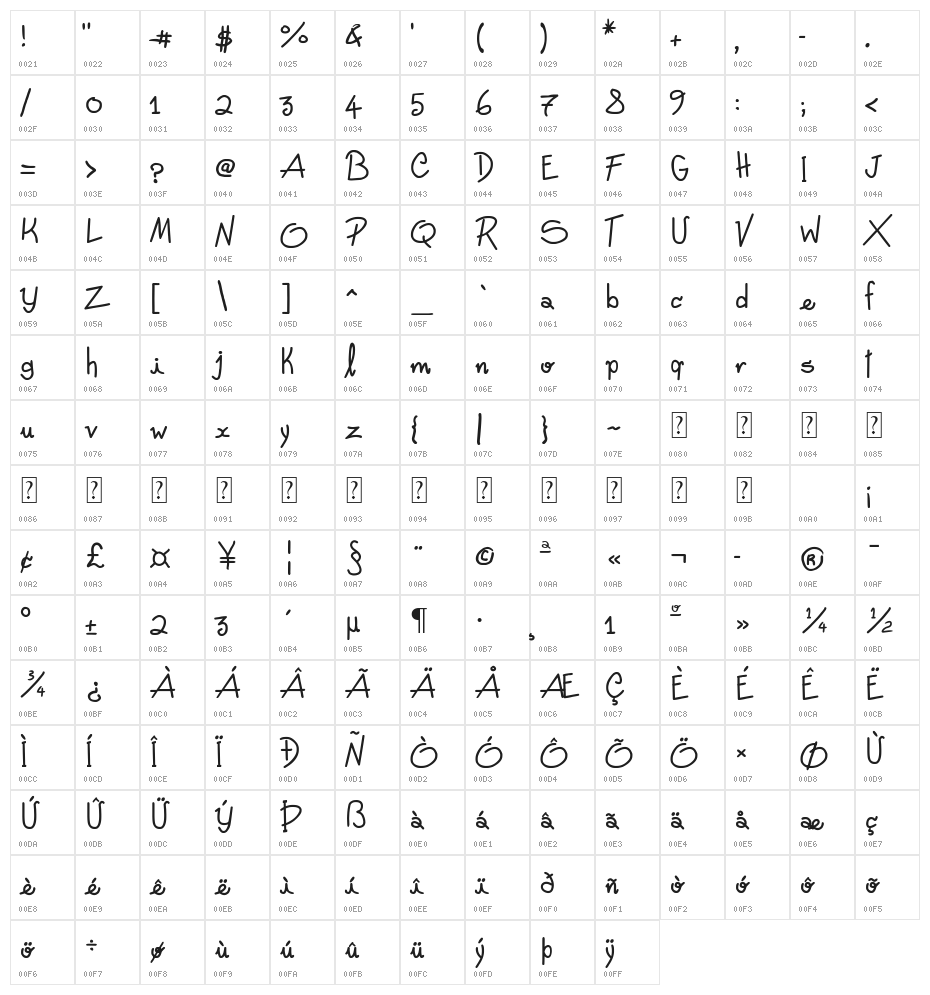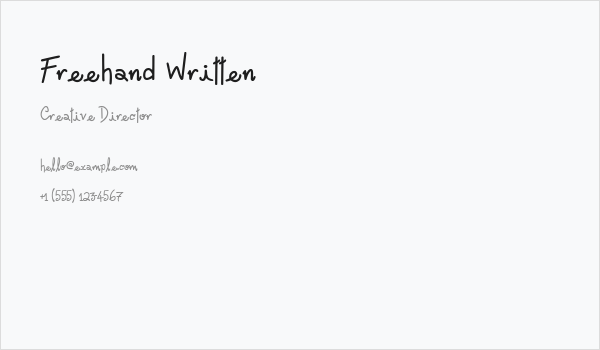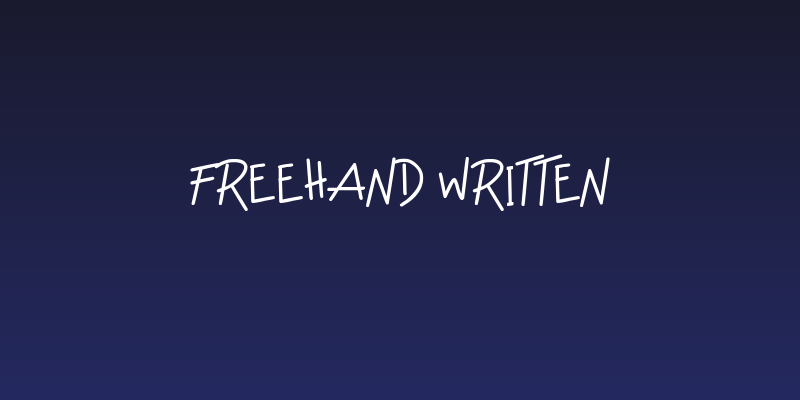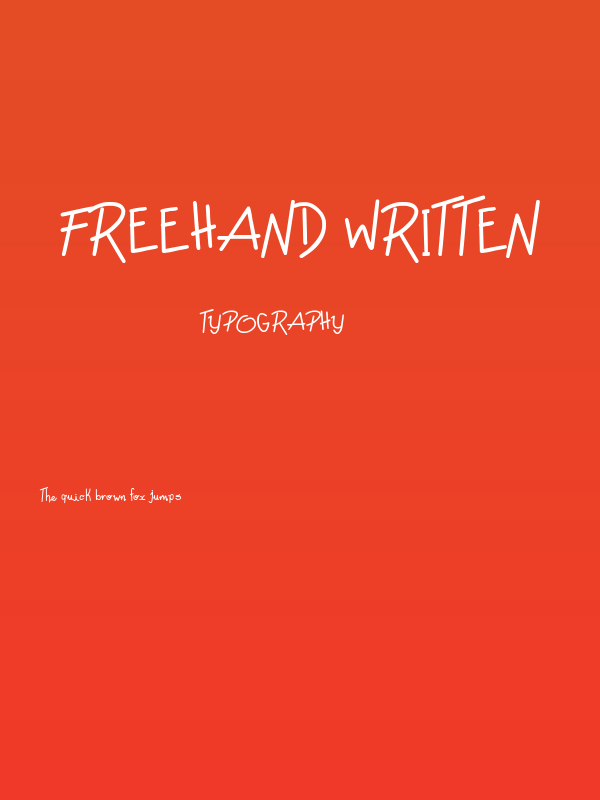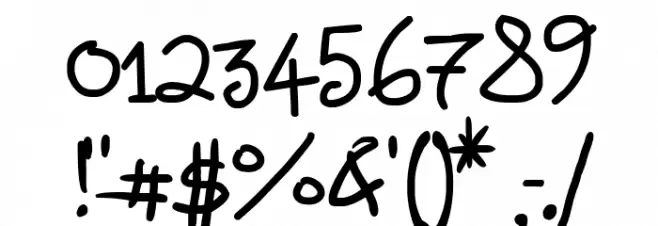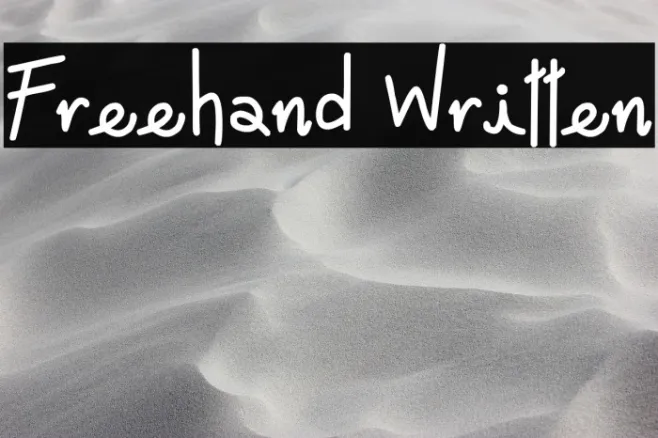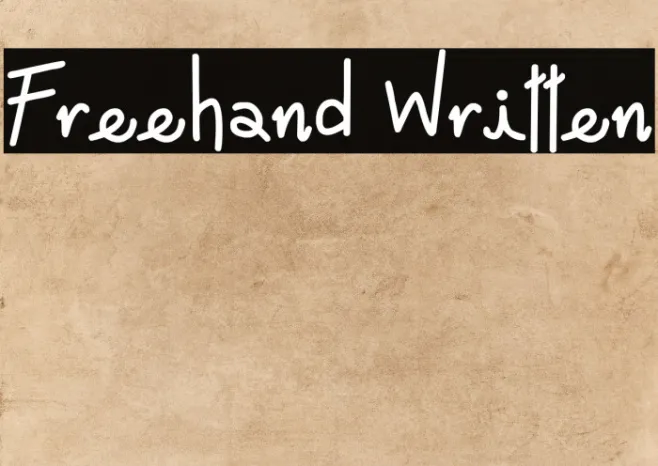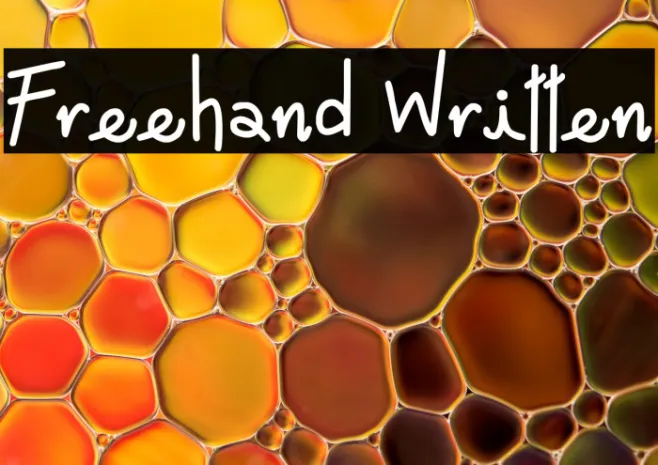
Freehand Written Font
Freehand Written Description
This font features a playful, freehand style that mimics the look of casual handwriting. The uppercase letters are bold and slightly irregular, giving a sense of spontaneity and creativity. The lowercase letters maintain a consistent flow, with rounded edges and a smooth, continuous stroke. Numbers and special characters follow the same handwritten aesthetic, adding to the font's cohesive appearance. The overall look is informal and friendly, making it suitable for projects that require a personal touch.